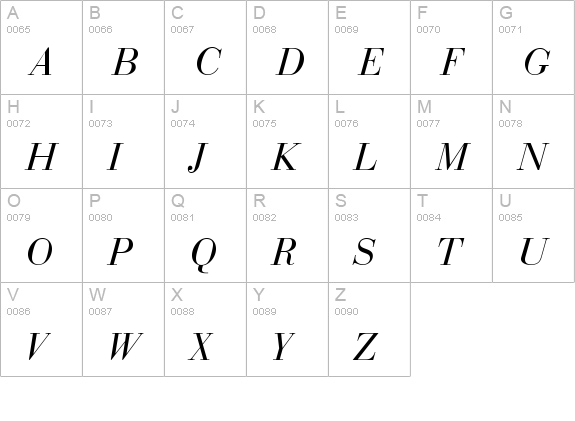
BauerBodoniEF-RegularItalic Font Details
BauerBodoniEF-RegularItalic is a beautifully crafted typeface that exudes elegance and sophistication. Its sleek and slanted italic design adds a touch of flair to any text, making it perfect for conveying a sense of style and refinement. The delicate curves and sharp serifs of this font give it a timeless and classic appeal, making it a versatile choice for a wide range of design projects. What sets BauerBodoniEF-RegularItalic apart is not only its stunning aesthetics but also its accessibility - it is available for free download at FontsMarket.com. This means that you can easily incorporate this stunning typeface into your projects without breaking the bank. Whether you are designing a wedding invitation, creating a logo, or working on a branding project, BauerBodoniEF-RegularItalic is sure to elevate your designs and make them stand out. With its graceful design and free availability, BauerBodoniEF-RegularItalic is a must-have font for any designer looking to add a touch of sophistication to their work. Download it today and unleash your creativity with this exquisite typeface.